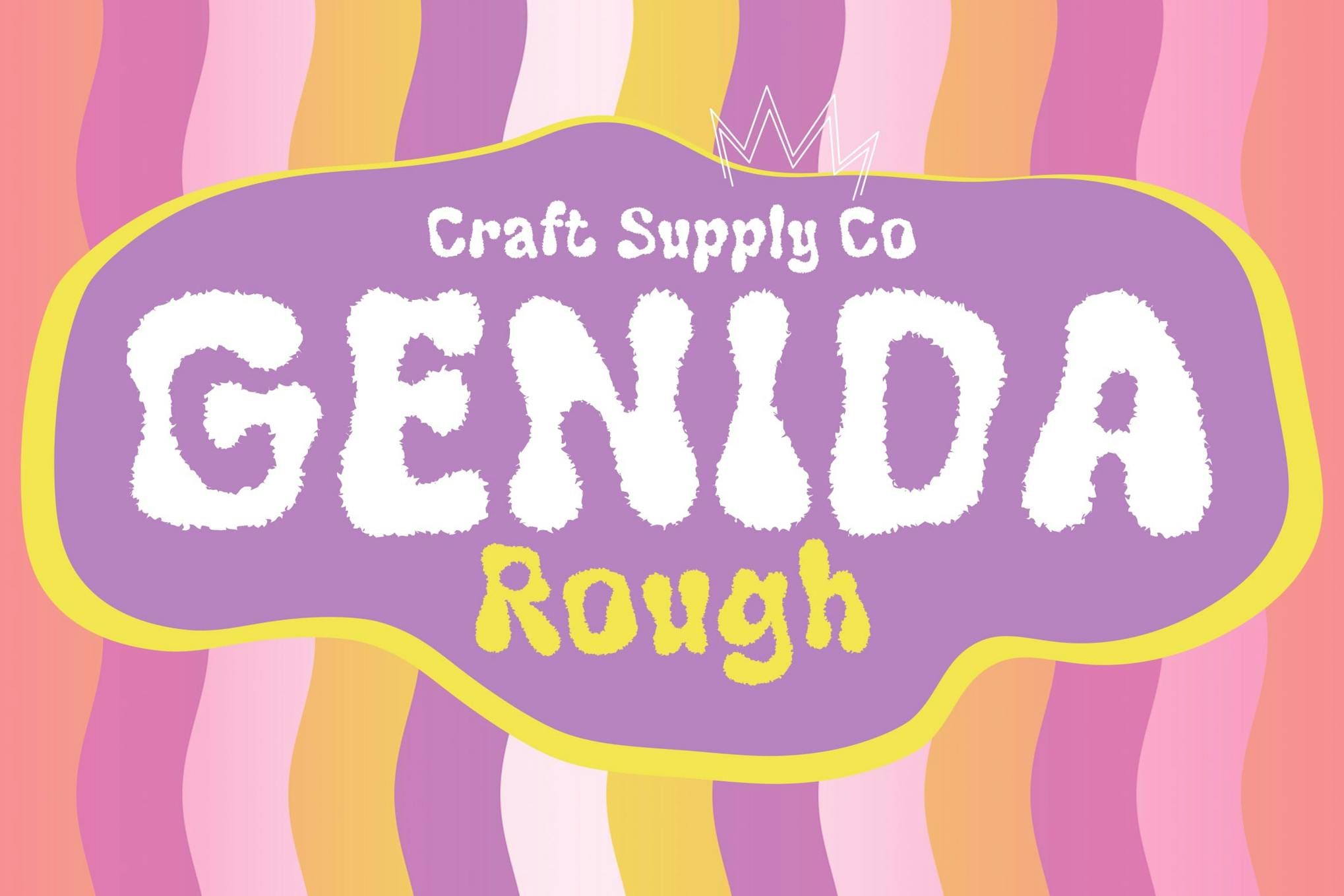
Genida Rough Font
Perfect for vintage branding, posters, logos, packaging, social media graphics, and editorial designs.
The Genida Rough Font excites designers with its rugged, textured appearance that adds an authentic, handcrafted feel to any project, delivering a bold and impactful statement.
Font families: Genida Rough Regular, Genida Rough Bold.
The Genida Rough Font Free Download is a striking typeface designed to infuse your creative projects with raw, vintage energy. Its rough edges and distressed textures provide a tactile, handcrafted look perfect for designs seeking to convey authenticity and strength. Whether you’re creating branding materials, posters, or digital content, Genida Rough commands attention.
One of the key strengths of Genida Rough Font is its perfect balance between texture and readability. Despite its gritty style, it remains clear and effective for headlines and display text, ensuring your message is both impactful and legible.
In branding, Genida Rough conveys toughness, craftsmanship, and originality. It pairs excellently with rustic color palettes, textured backgrounds, and vintage elements, helping brands establish a genuine and memorable identity.
For digital projects, this font enhances website headers, social media posts, and promotional materials with its bold, textured style. Its distinctive character ensures your digital presence stands out with a rugged and authentic vibe.